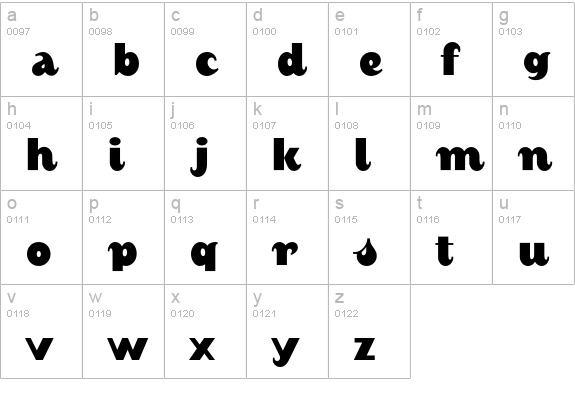
August-BlackAlternate font is a striking and versatile typeface that exudes elegance and sophistication. With its bold and modern design, this font is perfect for adding a touch of style to your projects. The alternate version of the font features unique and eye-catching characters that will make your text stand out. And the best part is, August-BlackAlternate font is available for free download at FontsMarket.com. So you can easily access this premium font without any cost. Whether you're working on a design project, creating branding materials, or just looking to enhance your text, August-BlackAlternate font is a great choice. Download it today and elevate your designs with this stunning typeface.